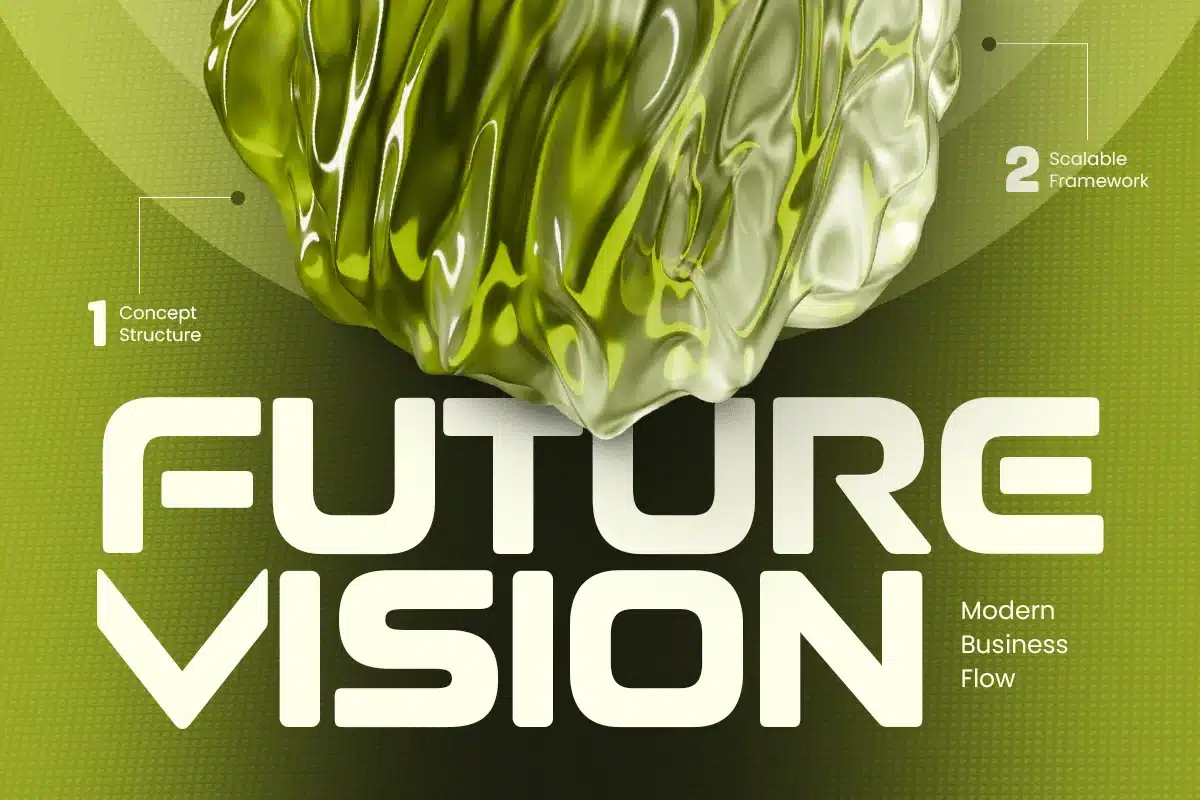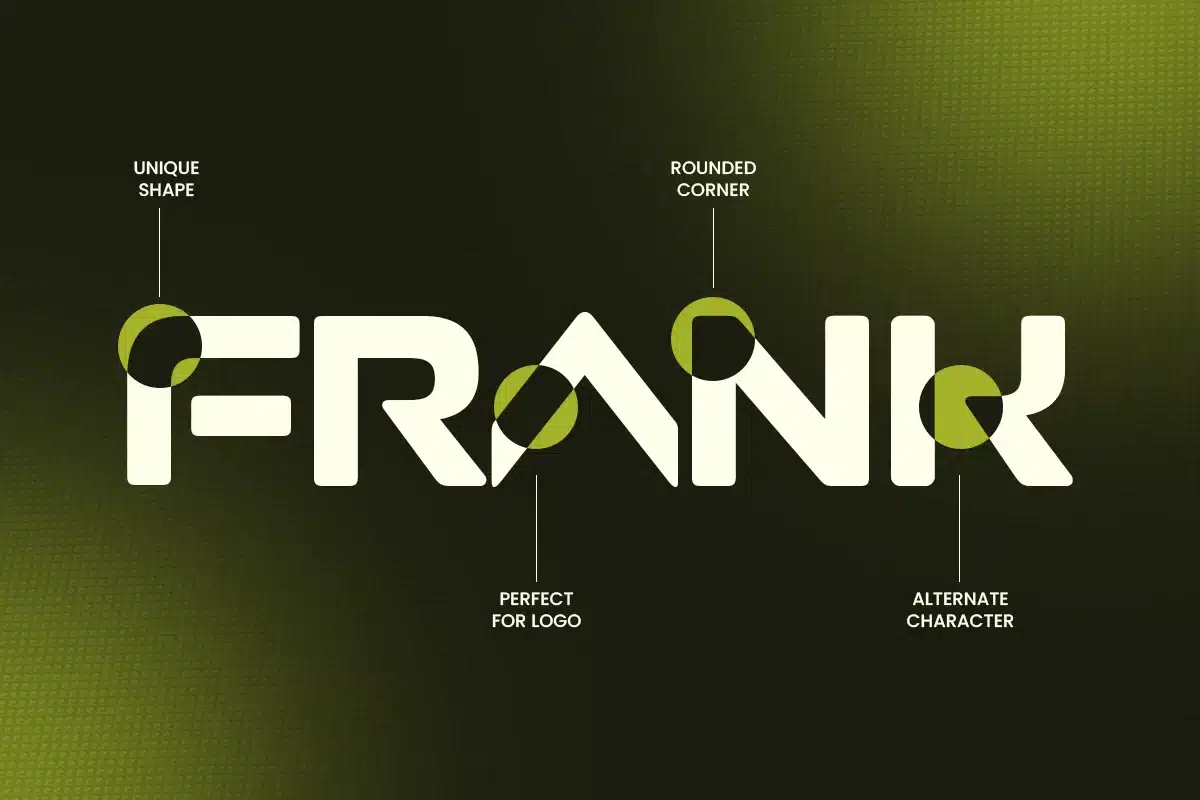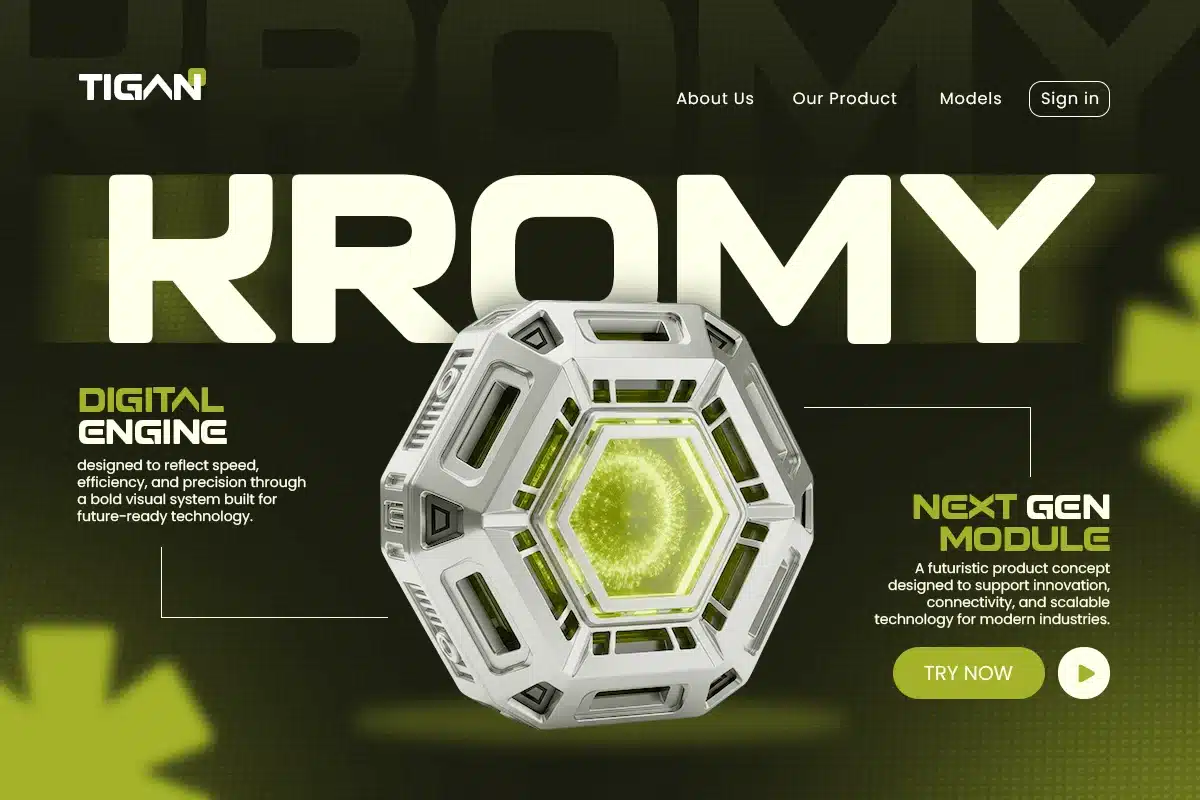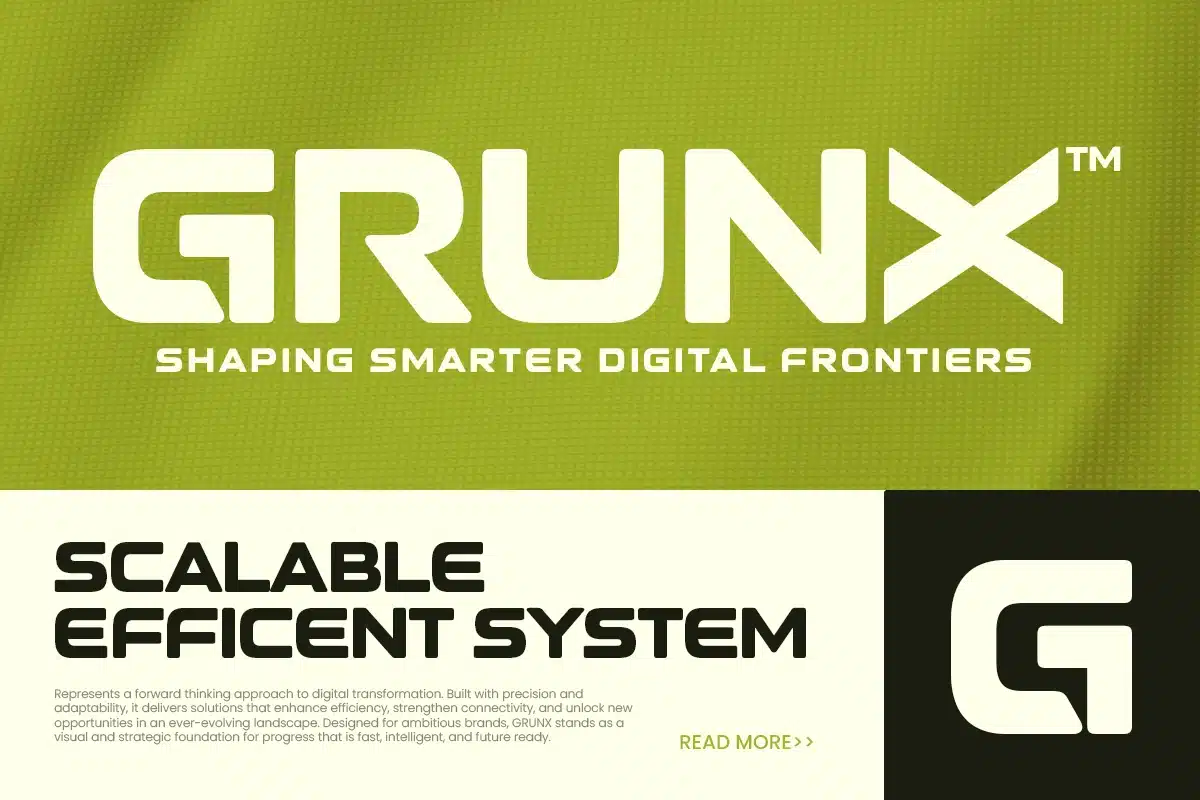
Brace – Branding Tech Logo Font
Brace – Branding Tech Logo Font is a modern display typeface crafted to represent clarity, innovation, and digital precision. Inspired by contemporary technology ecosystems and clean branding systems, Brace is designed for projects that require a strong and professional tech-driven identity.
With its refined structure, balanced geometry, and modern letterforms, Brace delivers a clean and confident typographic presence. The design ensures high readability while maintaining a futuristic and innovative tone, making it ideal for technology branding and digital products.
Brace Font Features
- Modern tech-inspired letterforms optimized for logo branding
Brace is Perfect For
- Technology logo and brand identity design
- Startup, SaaS, and digital product branding
- AI and software company visuals
- Website headers and modern interfaces
- Innovation-driven marketing campaigns
- Clean and futuristic design projects
Whether you are building a technology brand, designing a digital identity, or creating a modern innovation campaign, Brace delivers clarity, precision, and a contemporary tech aesthetic for impactful results.